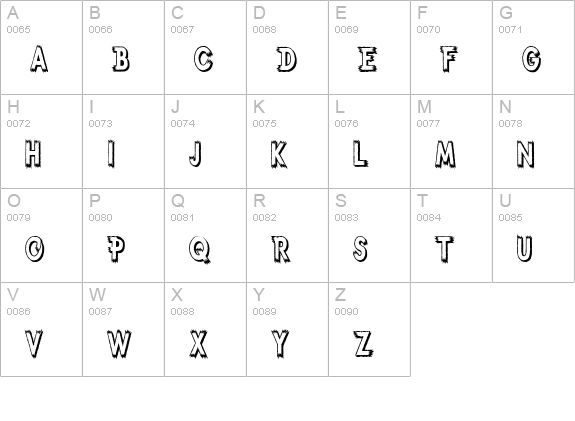
Weird Font is an extraordinary typeface that pushes the boundaries of traditional typography. With its unique and eccentric design, it adds a touch of quirkiness to any project or design. Each letter is carefully crafted to have a distinct and unusual shape, creating a truly one-of-a-kind visual experience. This font is perfect for those looking to make a statement and break away from the ordinary. Its unconventional style can be used to add a playful and whimsical touch to invitations, posters, logos, and more. Whether you're designing for a fun event or simply want to stand out from the crowd, Weird Font is the perfect choice. And the best part? It's absolutely free! You can easily download this font at FontsMarket.com, a reliable and trusted source for high-quality and freely available fonts. With just a few clicks, you can have access to this extraordinary typeface and start adding a touch of weirdness to your designs. So go ahead and unleash your creativity with Weird Font. Let your imagination run wild and create something truly unique and memorable. Download it now and let the weirdness begin!